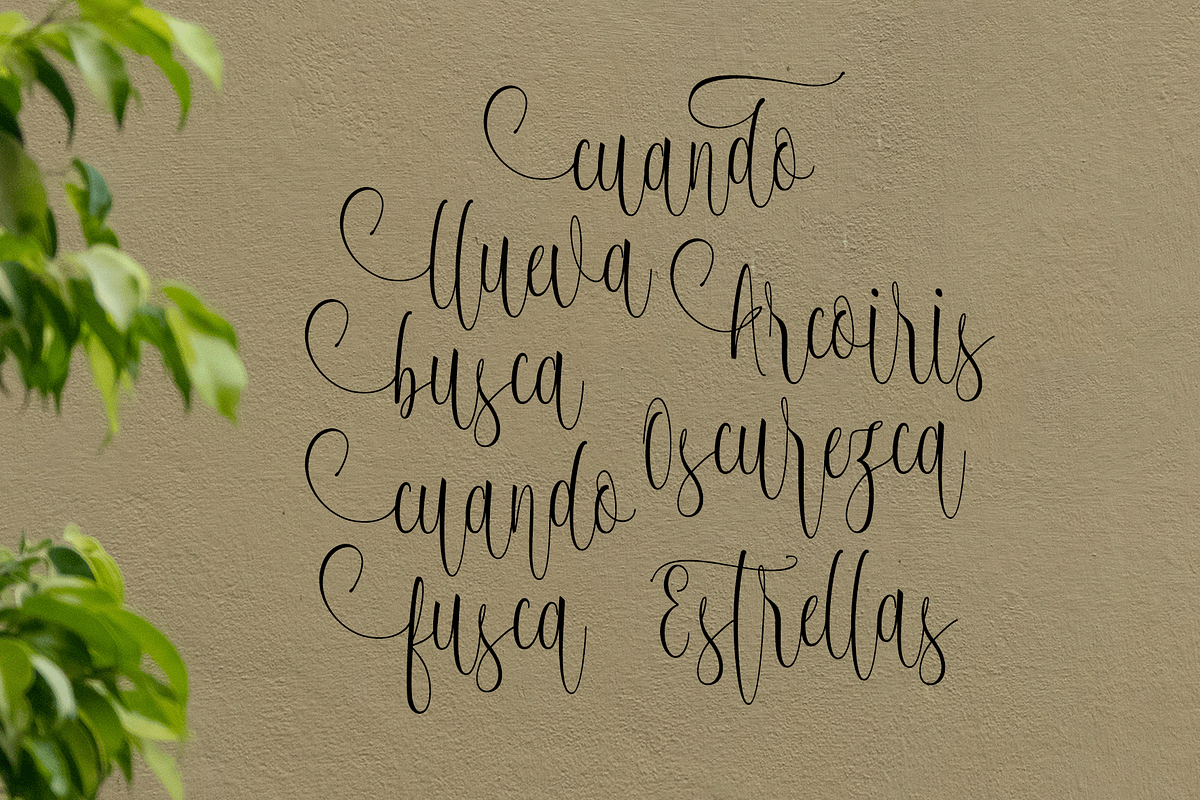
Ageless, a work that is purely handwritten, has natural characteristics. It's perfect for invitations, signatures, blogs, social media, business cards, product brands. Elegant has a style of letters, namely standard Stylistic and Stylistic Alternate, Swahs and includes upper and lower case letters, numbers and punctuation, also equipped with ligature.
The Features of this fonts is;
- Standart ligatures
- Contextual Alternates
- Stylistic sets